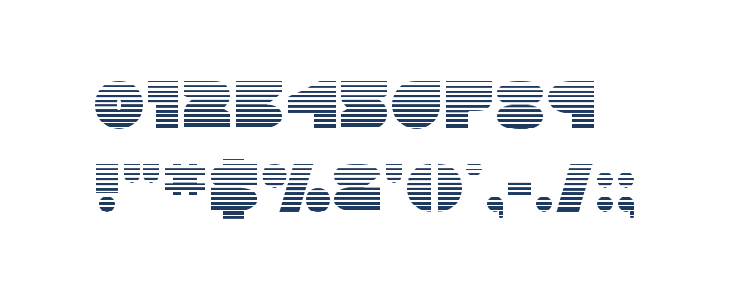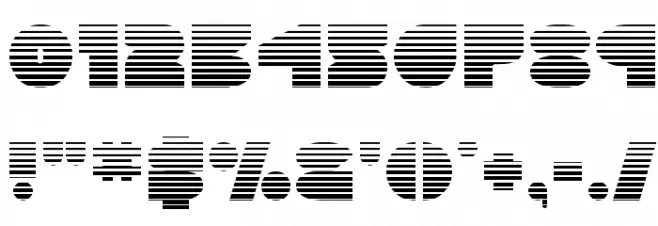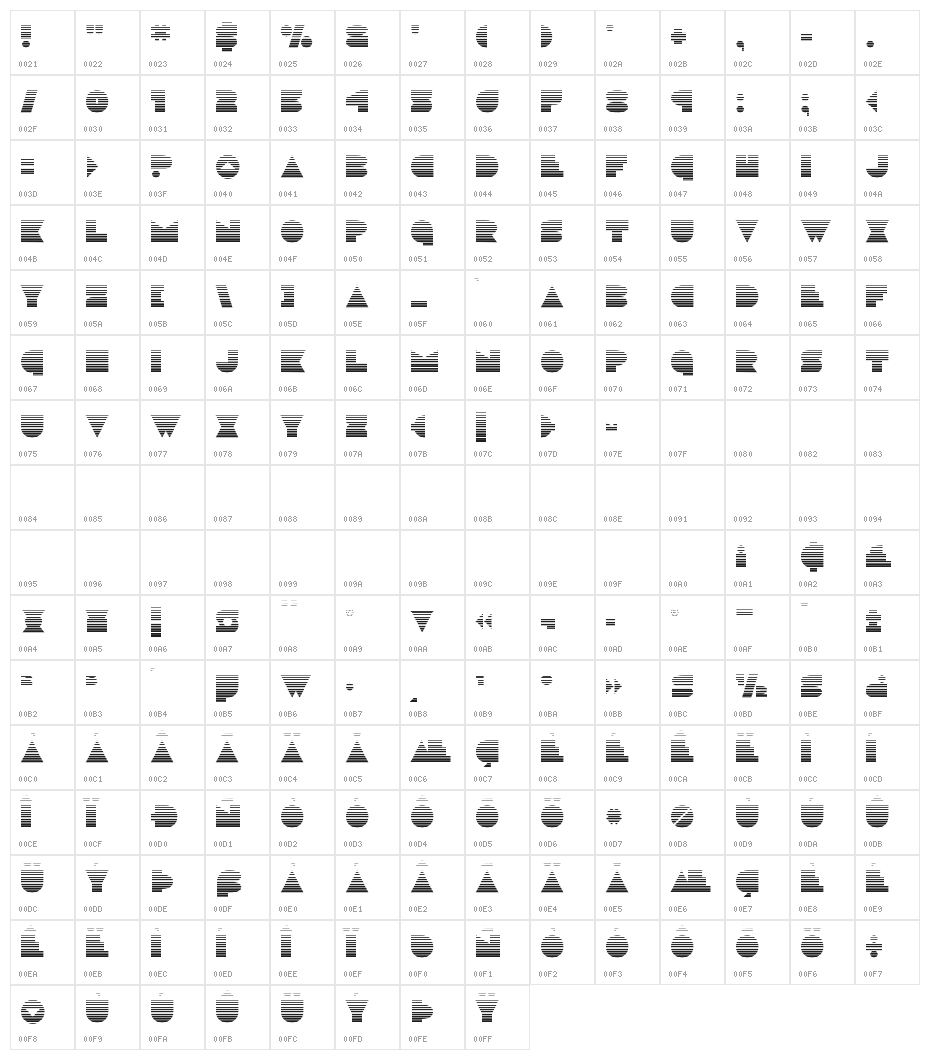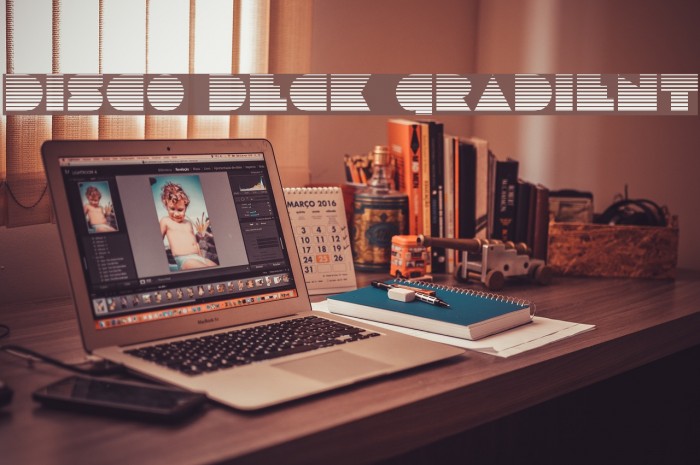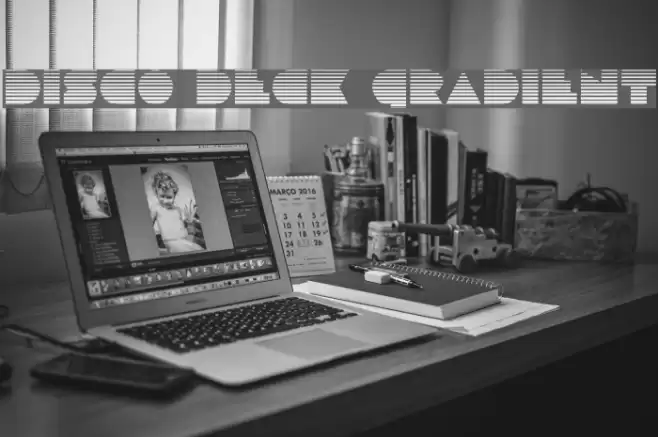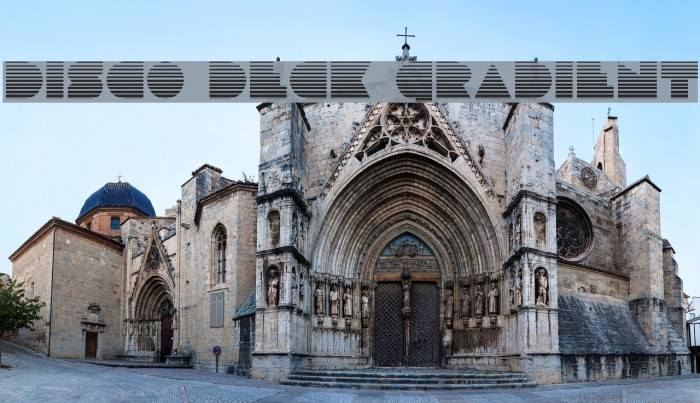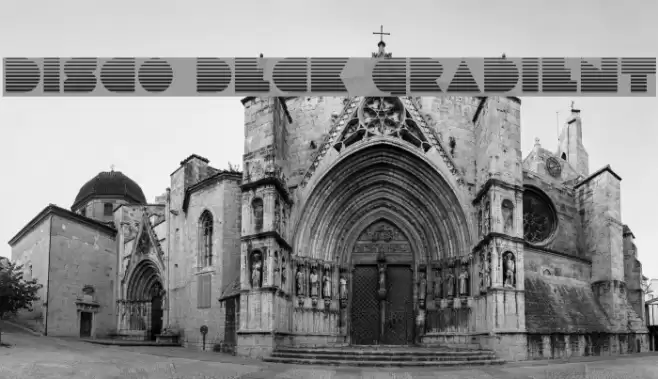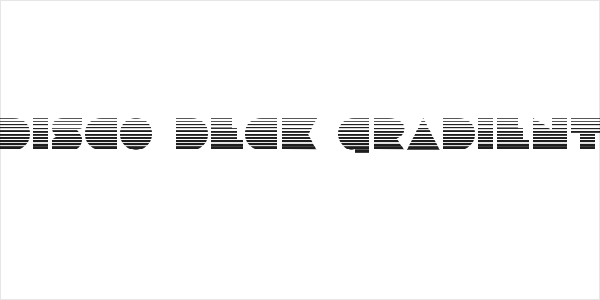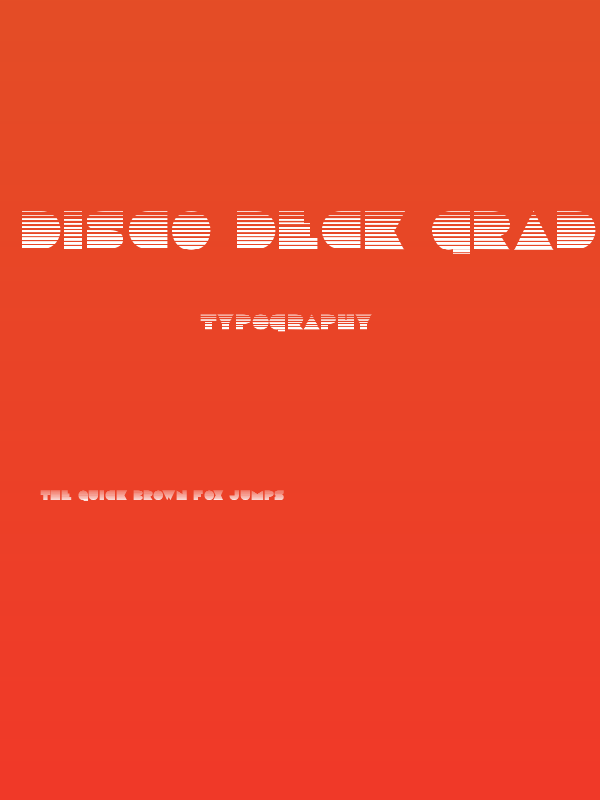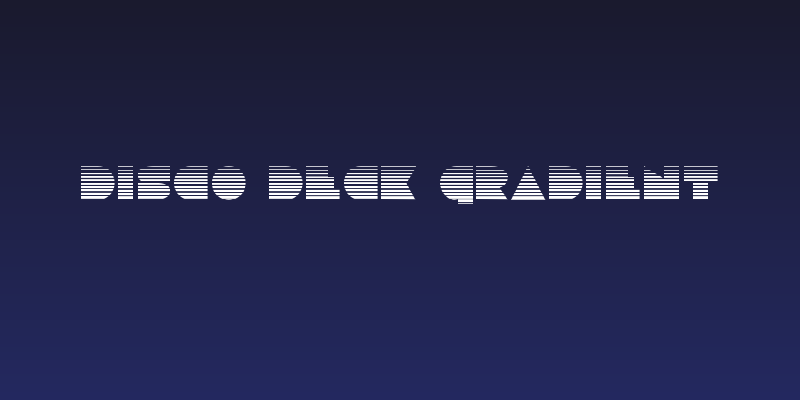
Disco Deck Gradient Font
Disco Deck Gradient Description
This font features a unique, bold design characterized by horizontal stripes that create a gradient effect across each character. The uppercase and lowercase letters, as well as numbers and special characters, all share this distinctive striped pattern, giving the font a dynamic and modern appearance. The lines vary in thickness, adding a sense of movement and energy. This style is reminiscent of retro and disco aesthetics, making it ideal for projects that aim to capture a sense of nostalgia or vibrant energy. The font's geometric shapes and consistent line spacing contribute to its readability despite its decorative nature.
| Overall Style | Retro, Modern |
| Proposed Projects | Ideal for music album covers, event posters, retro-themed branding, and creative digital media projects. |